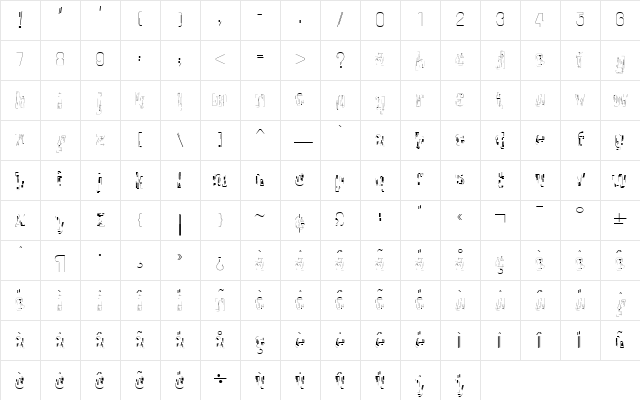
Instrument Regular
Design Context for Instrument
Instrument is a composed and adaptable typeface that performs quietly and consistently across a wide range of design contexts.